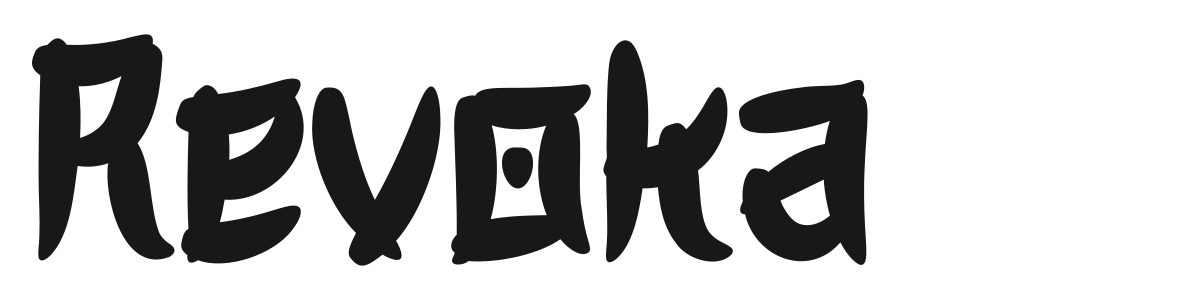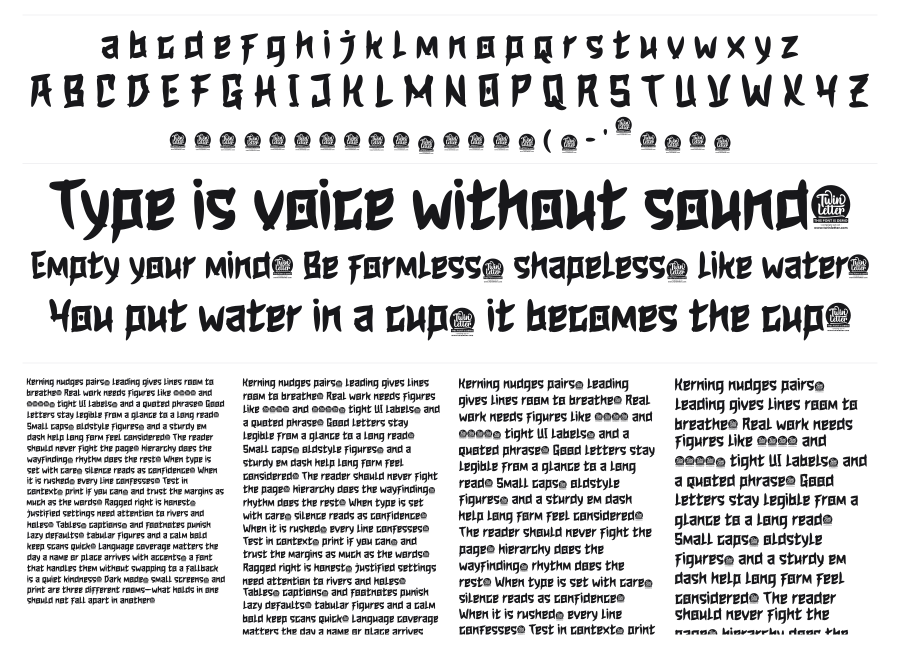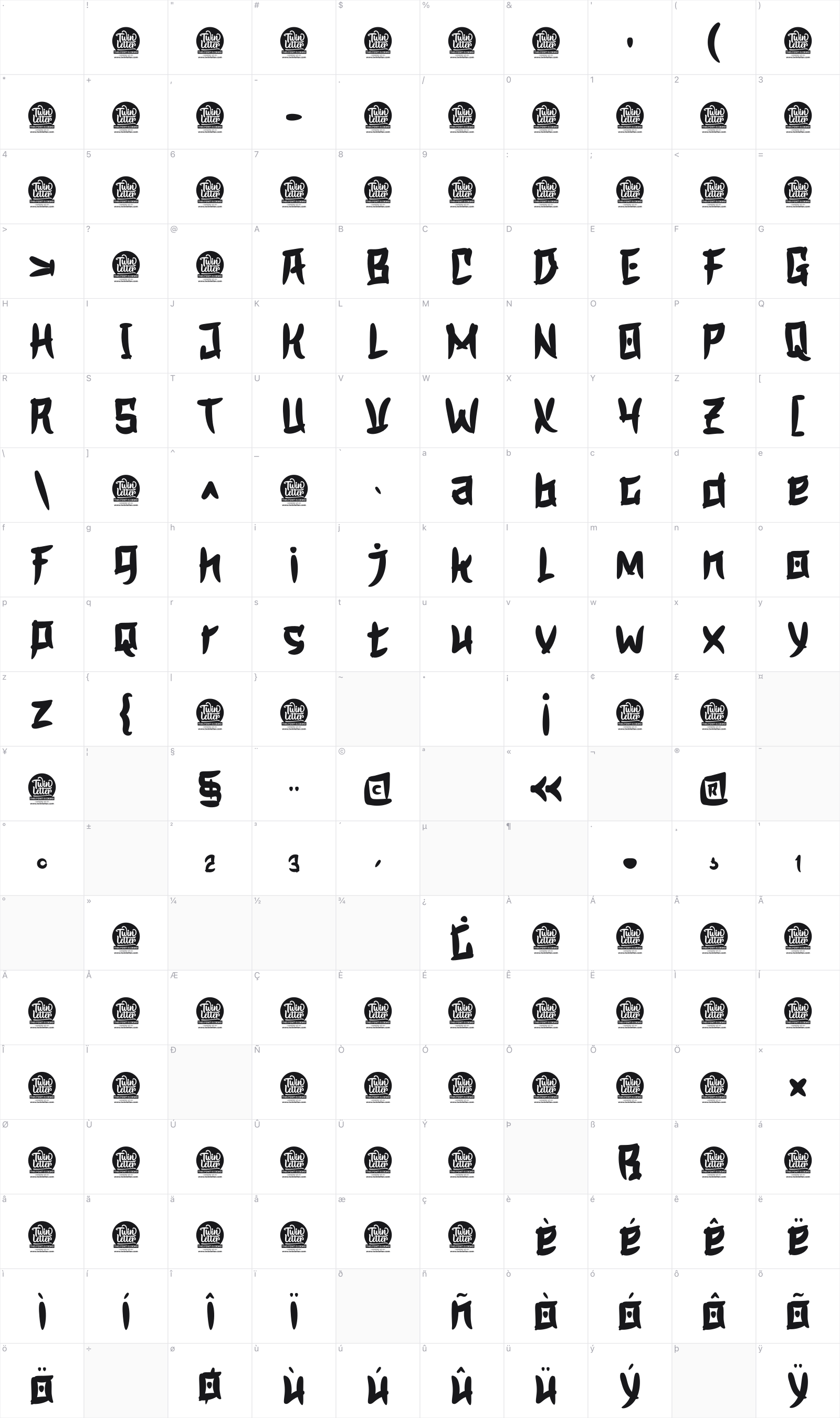
Revoka
Revoka is a heavy display face built on the idea of merging Asian calligraphic structure with Latin forms. Angular wedge terminals, chunky strokes, and deliberately irregular construction give it a raw, hand-cut energy that commands attention at large sizes. It reads naturally in contexts like food branding, movie titles, and posters where something bold and culturally textured is needed.